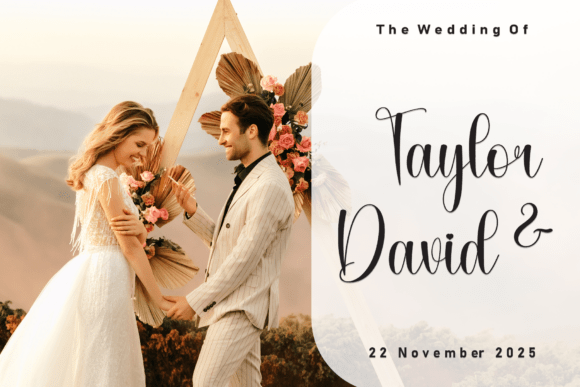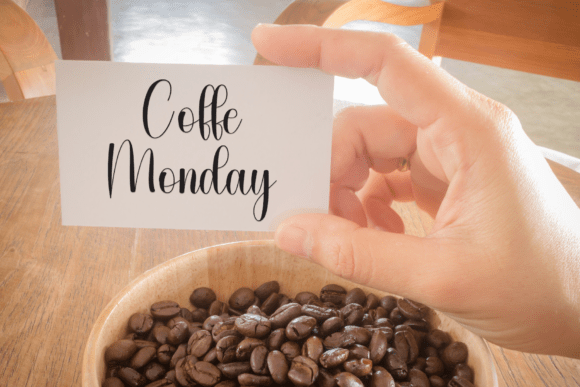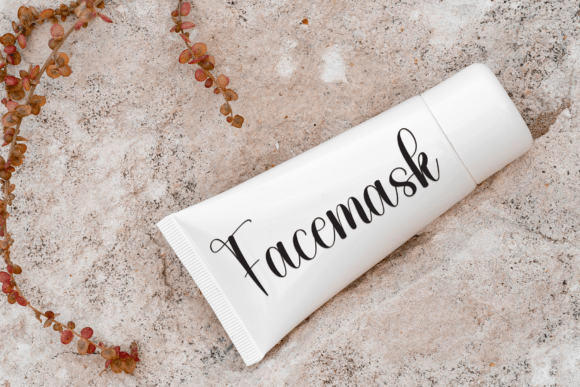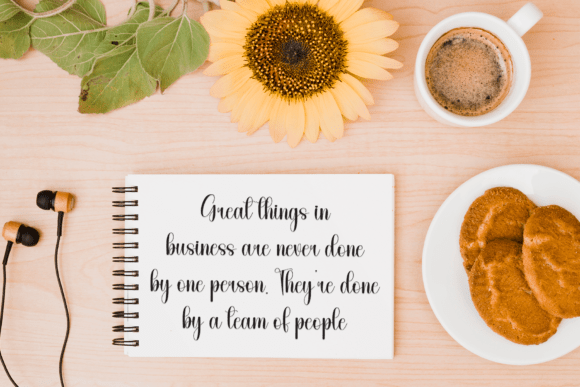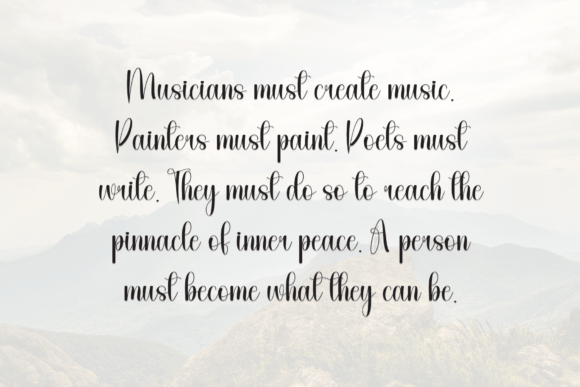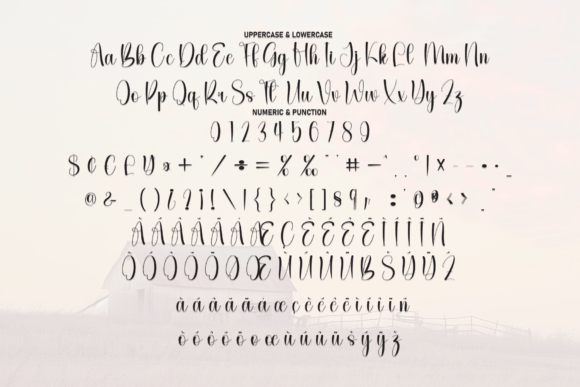
Introduction to Friday Farmhouse Font
Friday Farmhouse is a stylish script font that exudes artistic flair and contemporary elegance.
Featuring fluid brush strokes, dynamic curves, and expressive letterforms, it captures the essence of hand-painted calligraphy with a modern twist Ideal for logos, invitations, packaging, and social media graphics, it adds a creative and sophisticated touch to any design.
Key Features of Friday Farmhouse Font